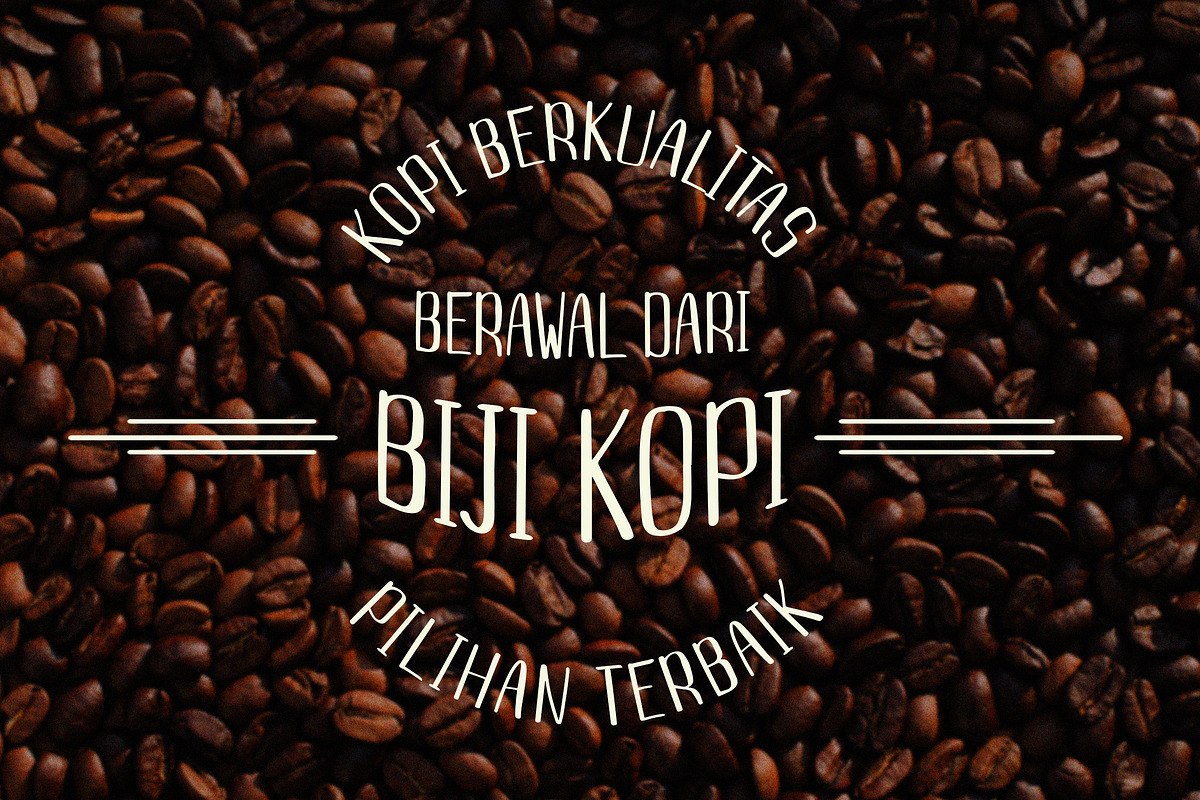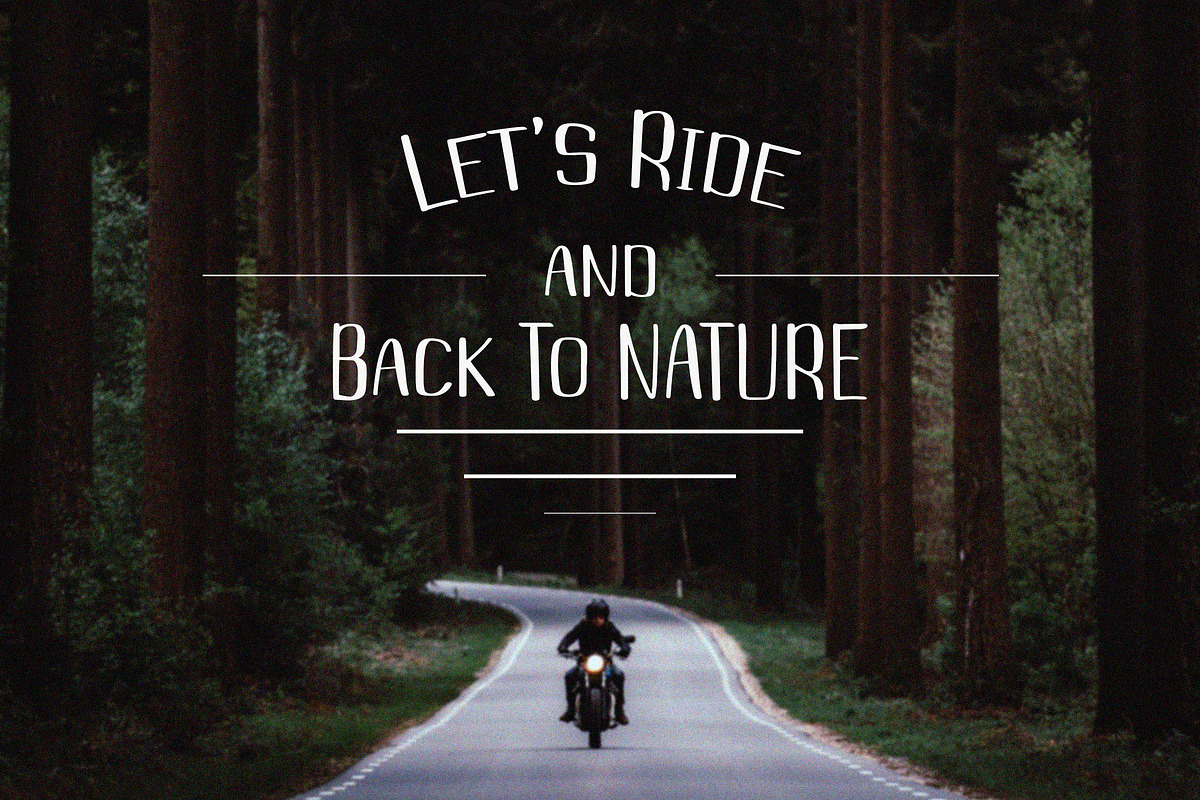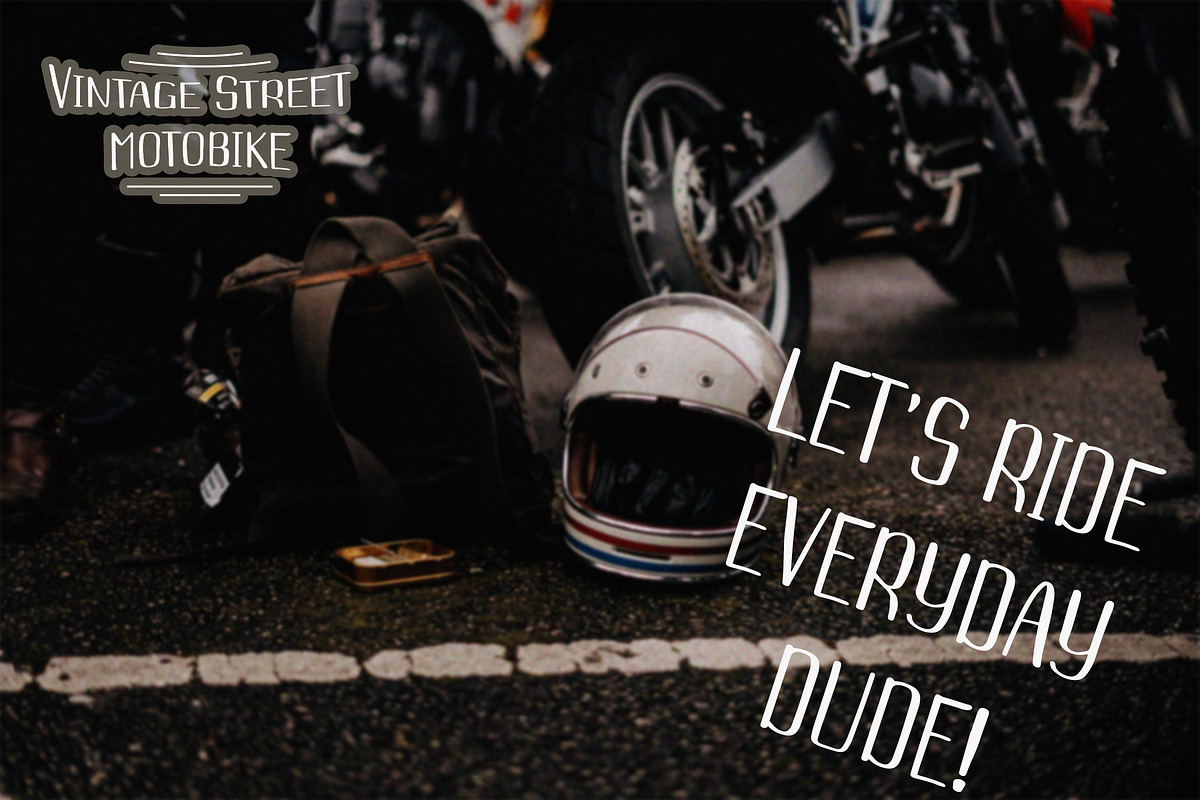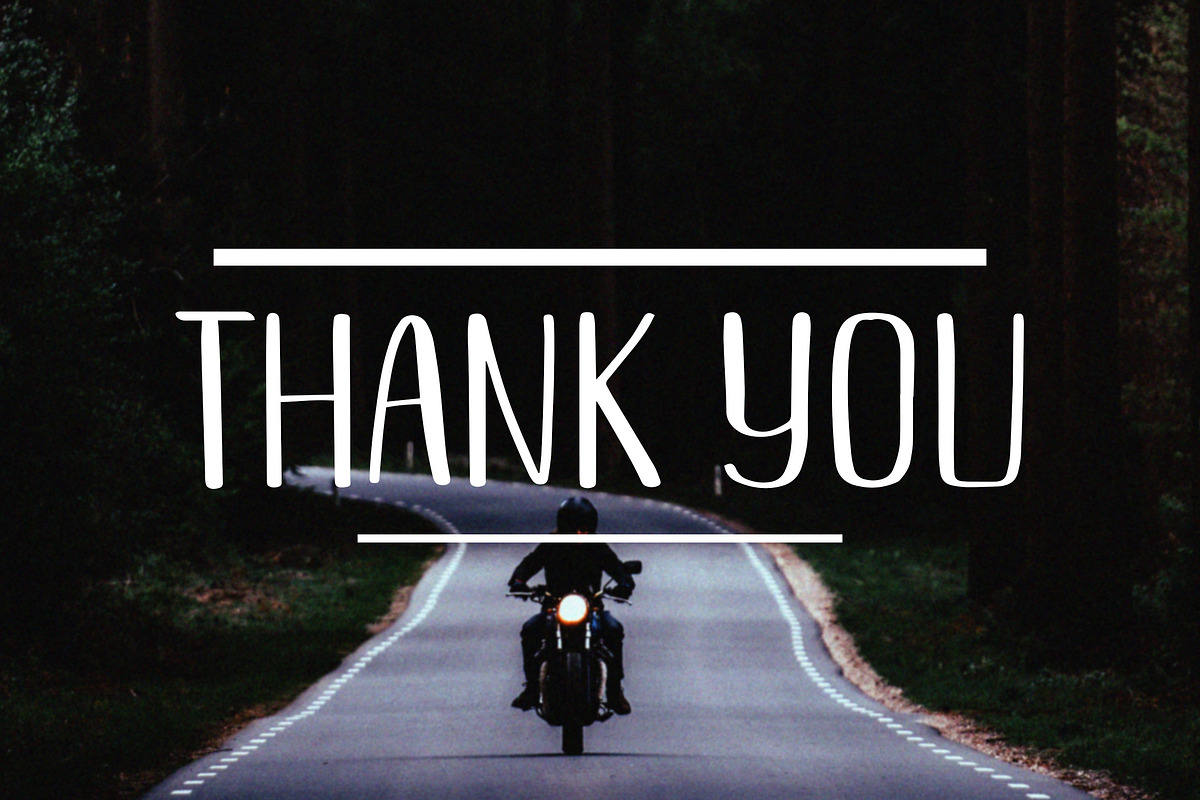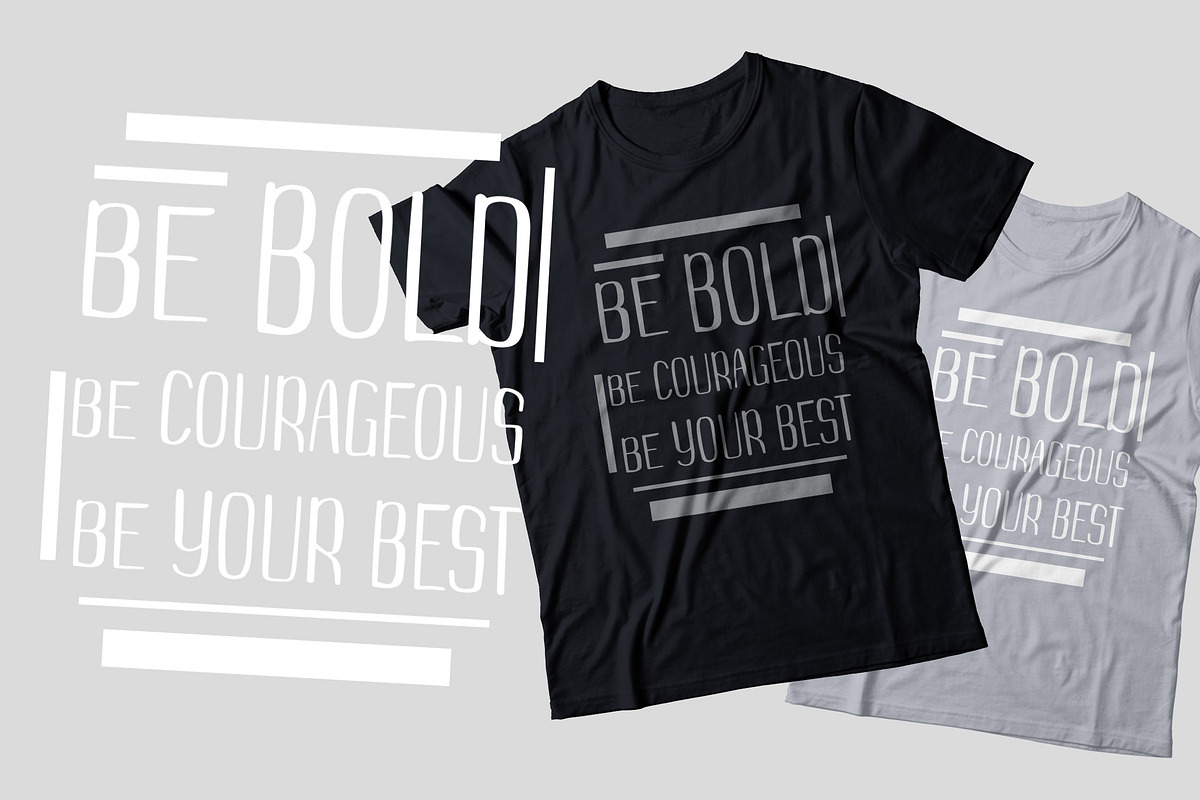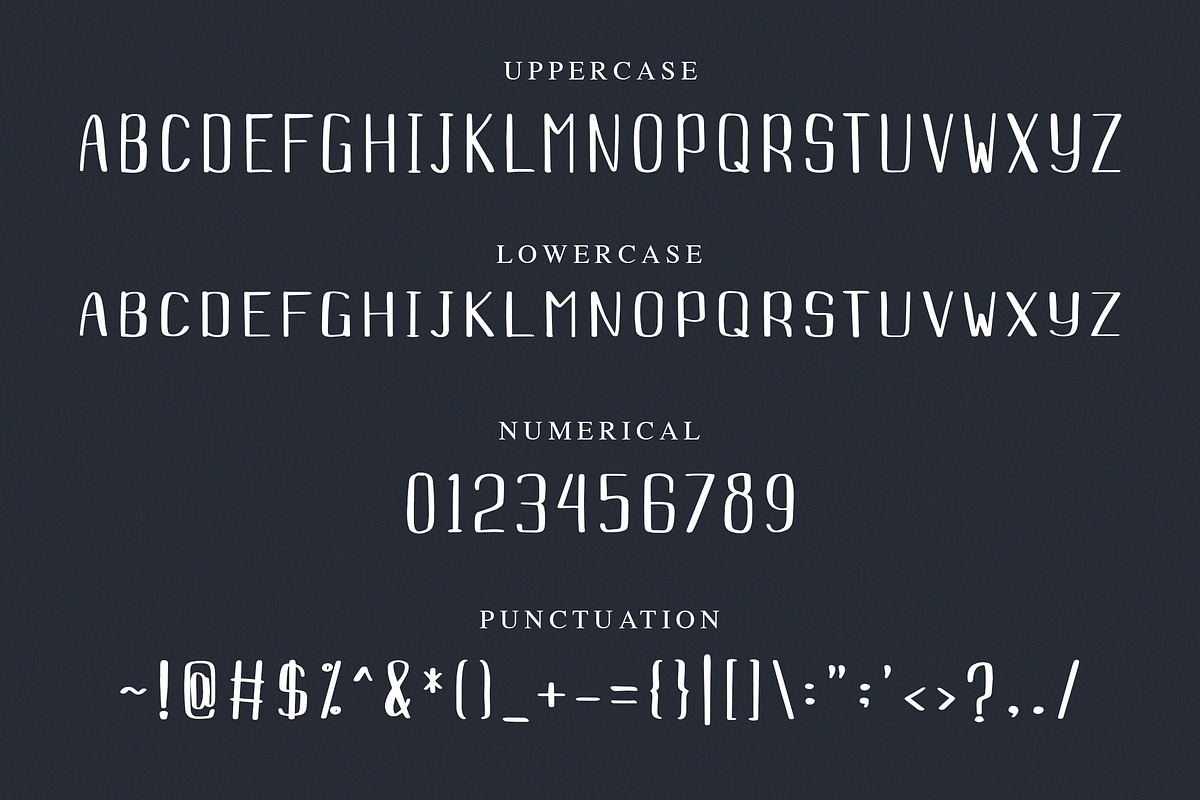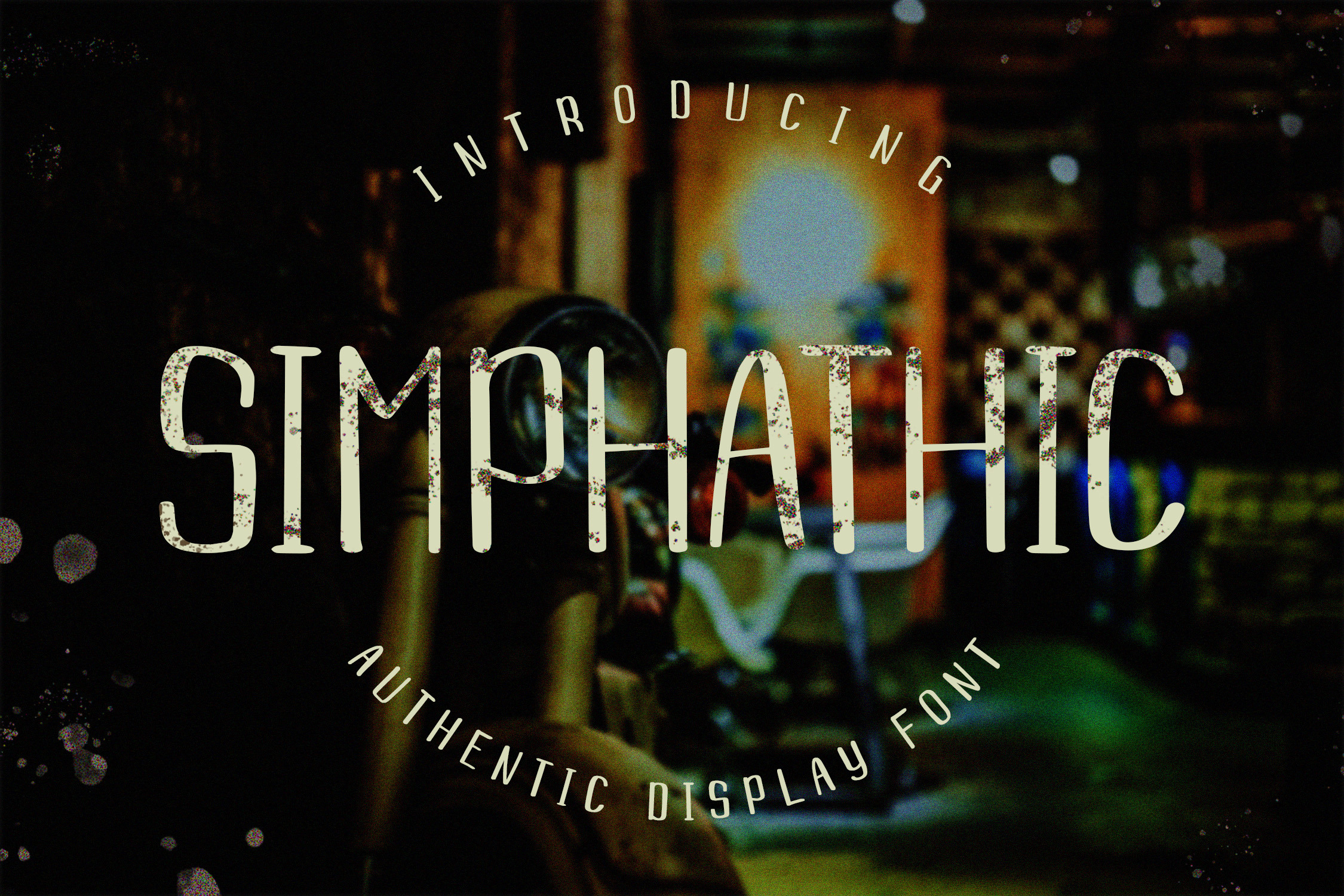
Simphathic - Authentic Display Font
Simphathic is a authentic display font with vintage style. Is a font style that is made as if it were handwritten. Can be applied to support the graphic appearance of the product to be more attractive and unique. This font is suitable for making previews and covers, Vintage logo designs, shirt designs and other graphic needs. Made with hand scratches directly and then processed into font processing software.
Senoteria font with uppercase characters A-Z, lowercase characters a-z, punctuation and numerical characters